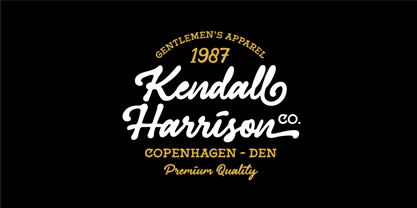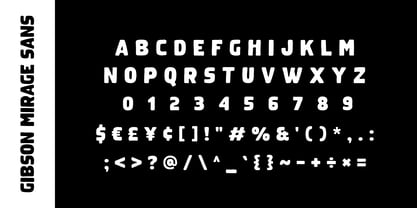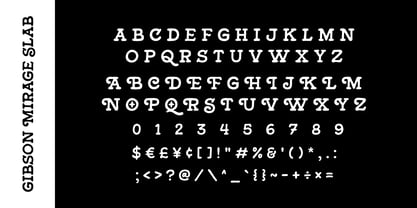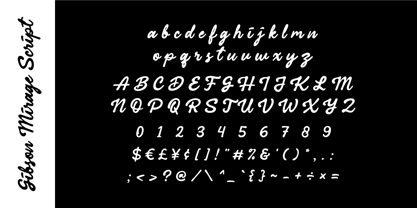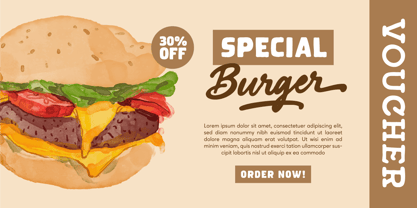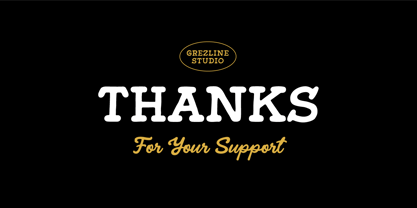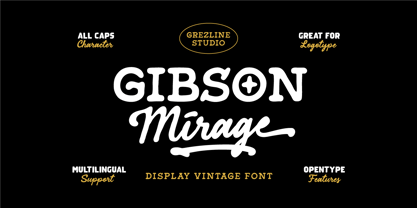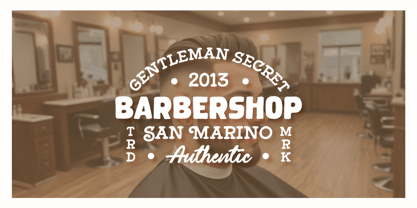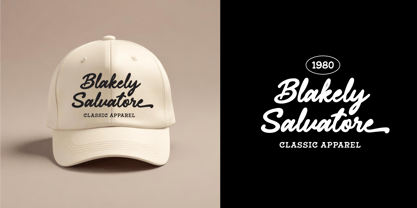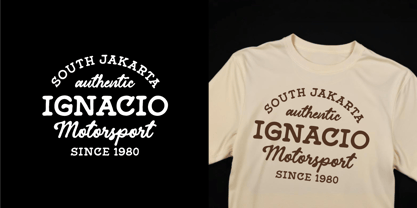
Gibson Mirage
by Grezline Studio
The Gibson Mirage Font Family was designed by Akhmad Reza Fauzi and published by Grezline Studio. Gibson Mirage contains 3 styles and family package options. More about this family
Step into a world where classic elegance meets refined craftsmanship. Gibson Mirage is more than a font — it is a visual legacy, inspired by the enduring charm of 20th-century print culture and reimagined for the discerning designer of today.
Carefully drawn with passion and respect for traditional lettering, Gibson Mirage brings together slab serif, organic script and imperfect sans that echo the tactile authenticity of vintage signage, book covers, and archival ephemera.